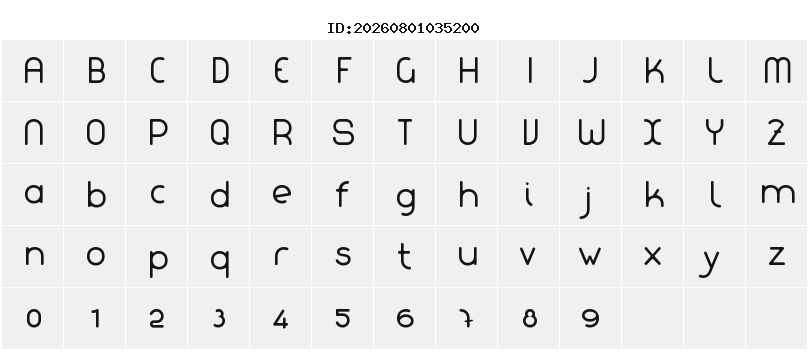
La chata Preview
• Font Name: La chata
• Font ID: deFharo.com: La chata: normal: 2011
• Full Font Name: Lachata
• Version: Version 5.005 2011
• PostScript Name: Lachata
• Character Count: 376
• Designer: Fernando Haro
• Manufacturer: Fernando Haro
About La chata.ttf
La chata.ttf is a modern, elegant sans-serif font designed for ultimate readability and visual harmony. Perfect for branding, headlines, web design, and print materials.